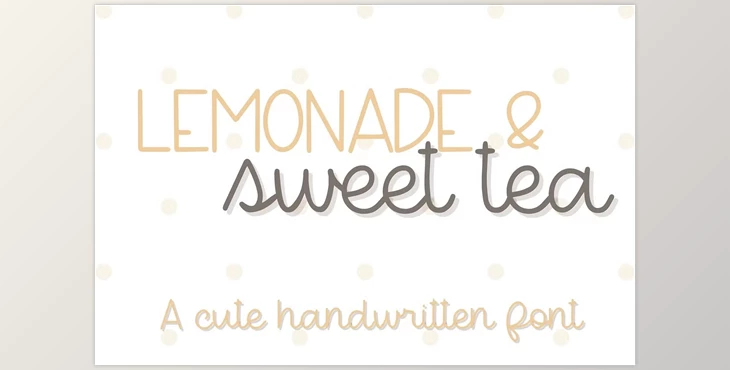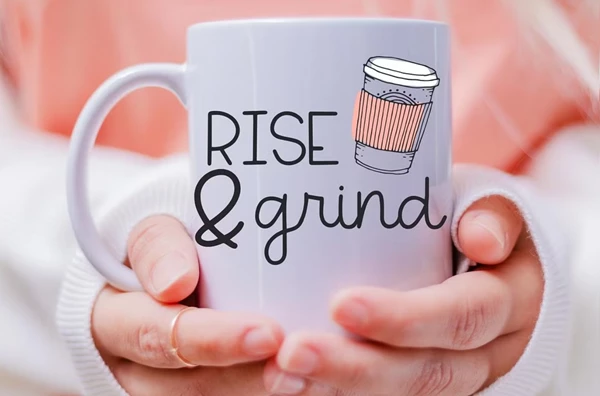
Lemonade & Sweet Tea - Cute Handwritten Font: Lemonade & Sweet Tea is a charming handwritten font designed to add a delightful touch to a variety of creative projects. Whether you're crafting scrapbooks, designing greeting cards, creating t-shirt graphics, making stickers, or enhancing your social media posts, this font is versatile and full of character. Compatible with programs that support OpenType fonts like Cricut, Illustrator, and Procreate, Lemonade & Sweet Tea comes with OTF, TTF, and WOFF file formats for easy integration into your design workflow. With its whimsical appeal and playful aesthetic, Lemonade & Sweet Tea is the perfect choice for adding a touch of sweetness to your designs.